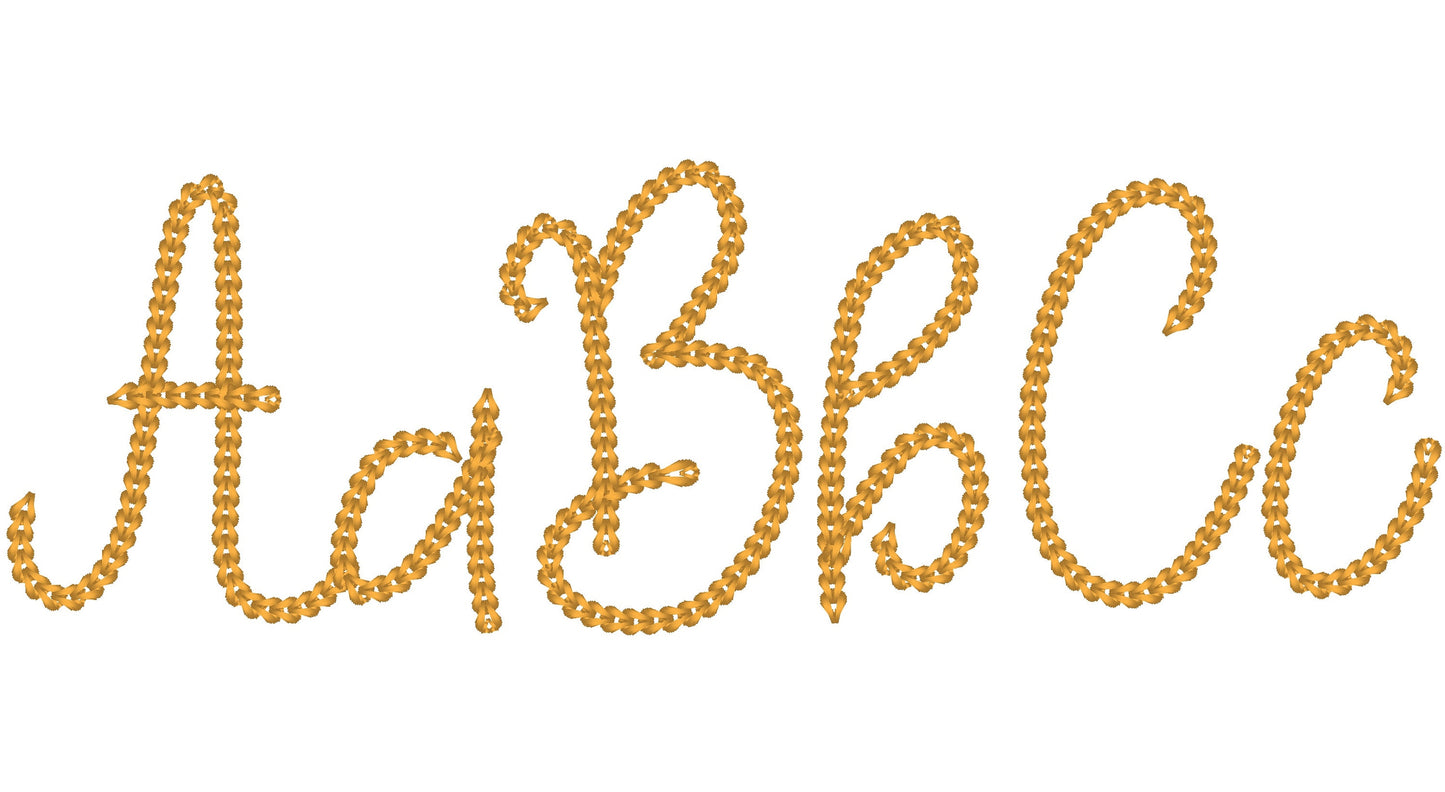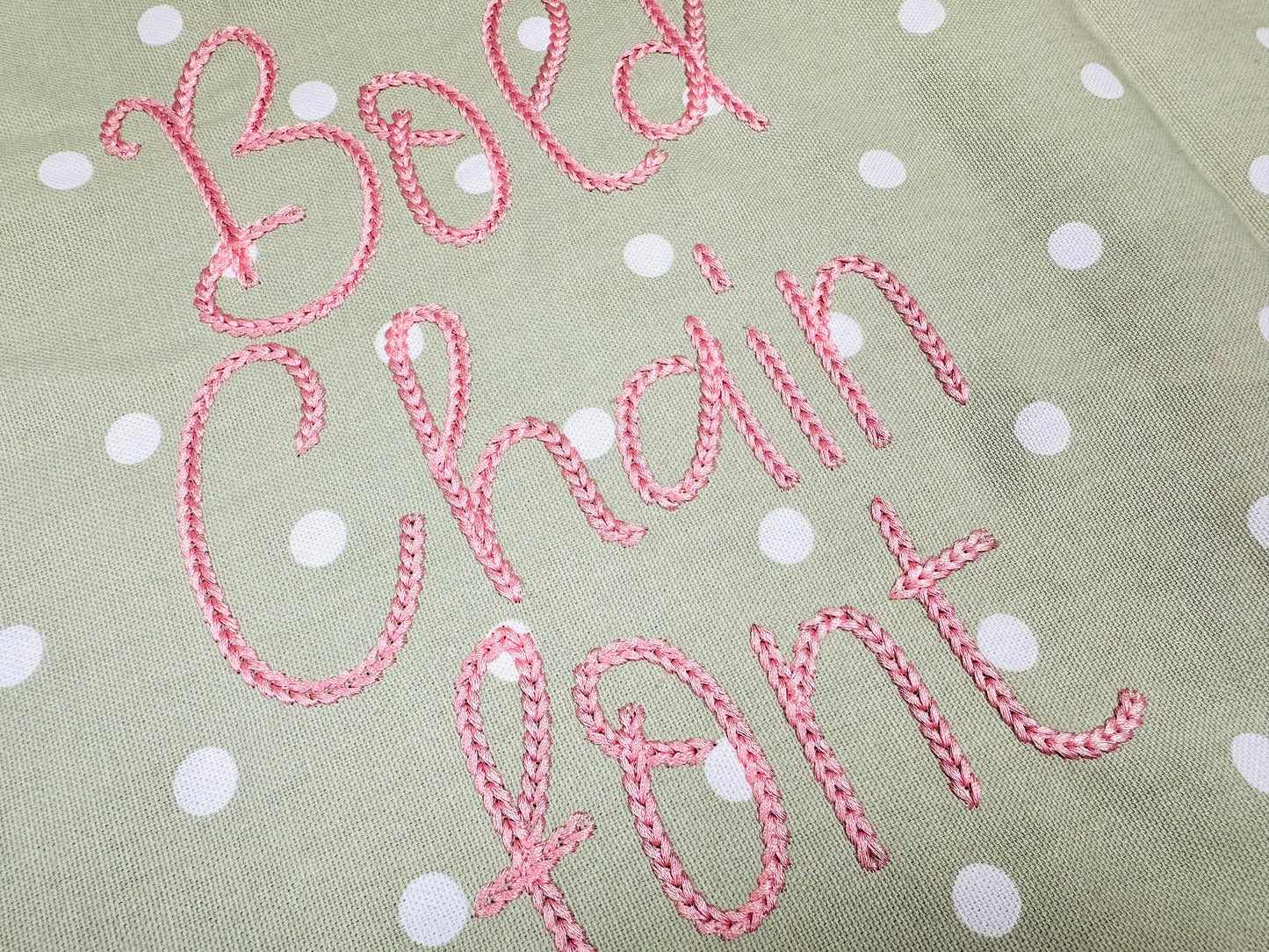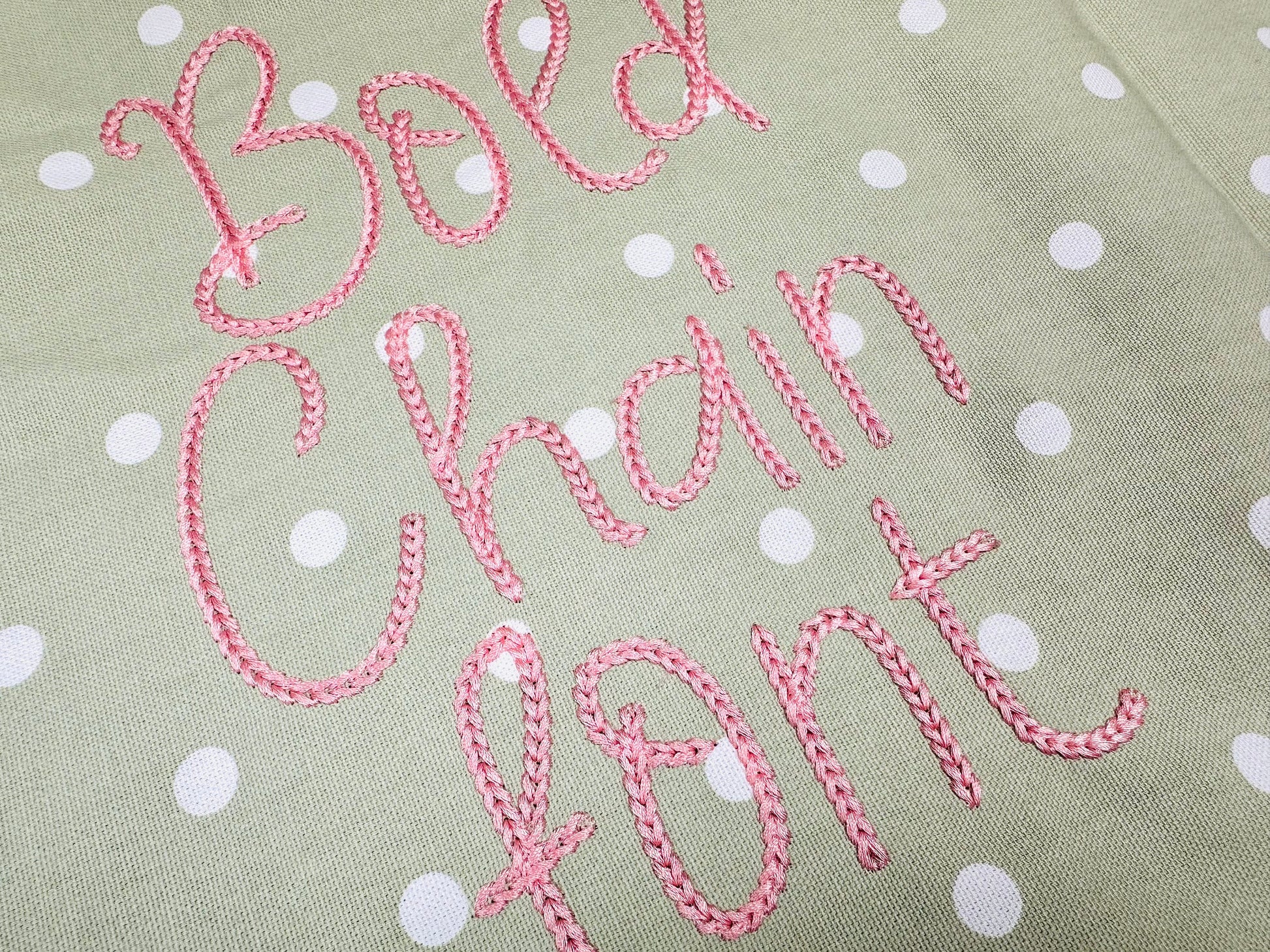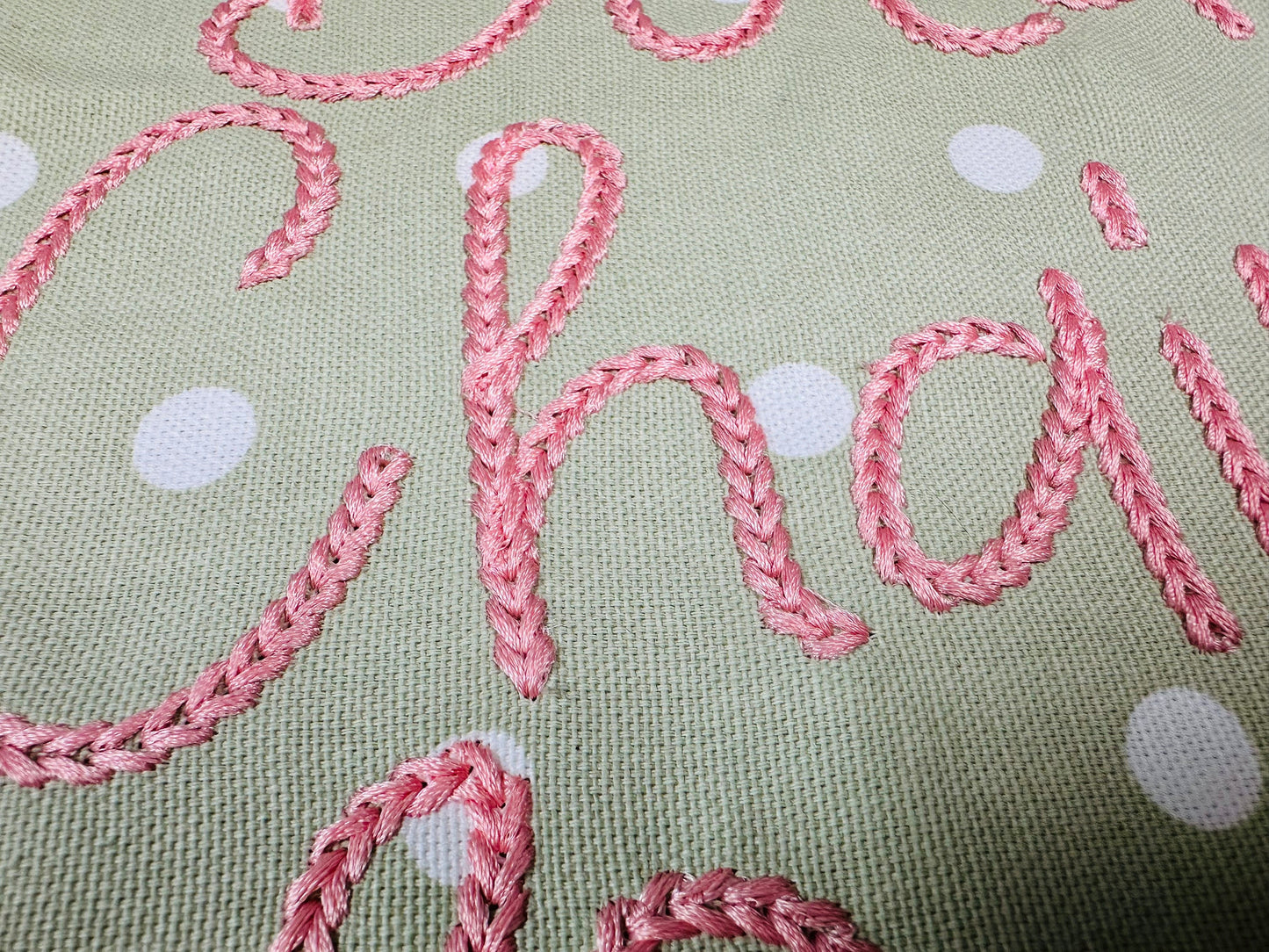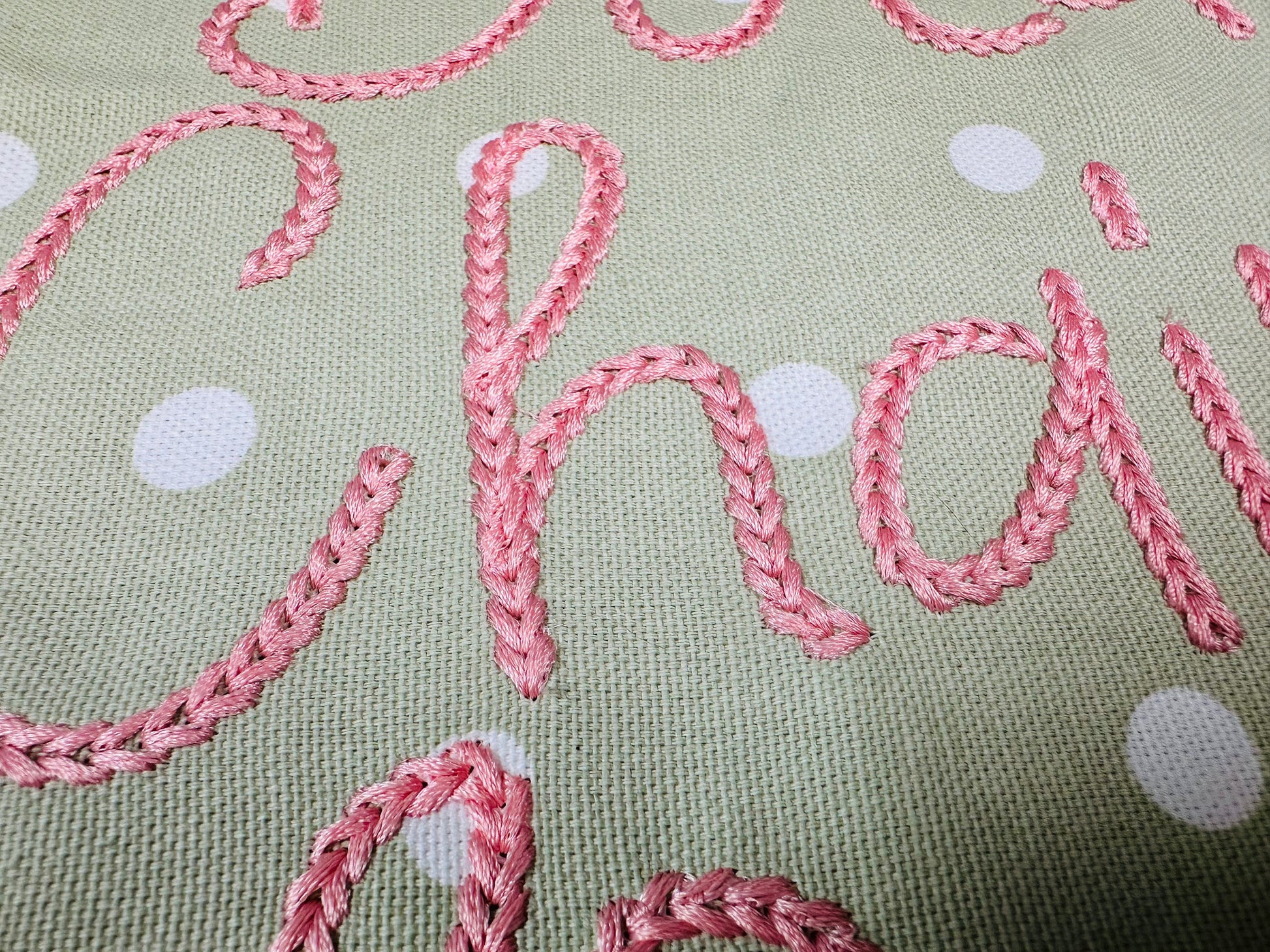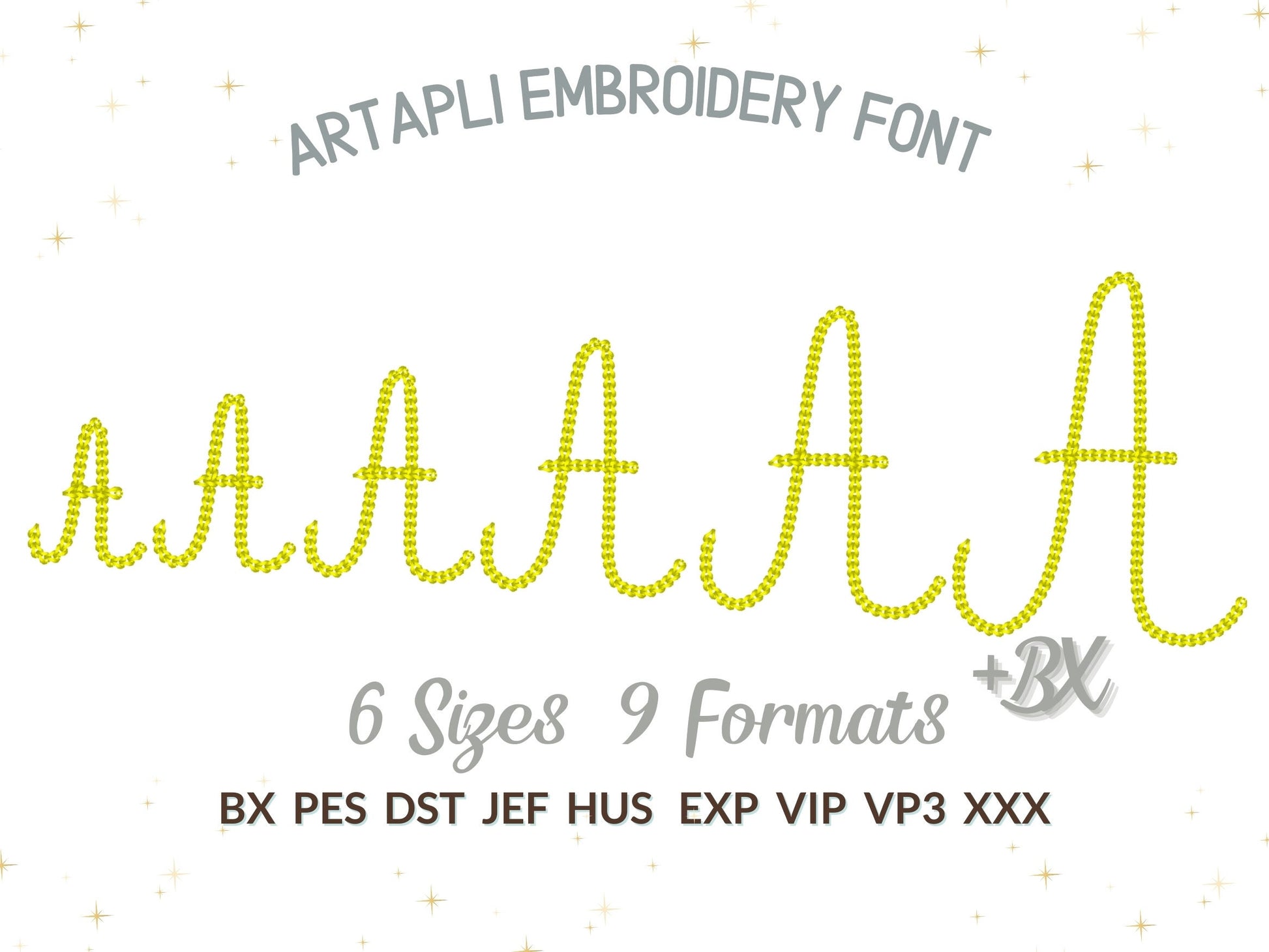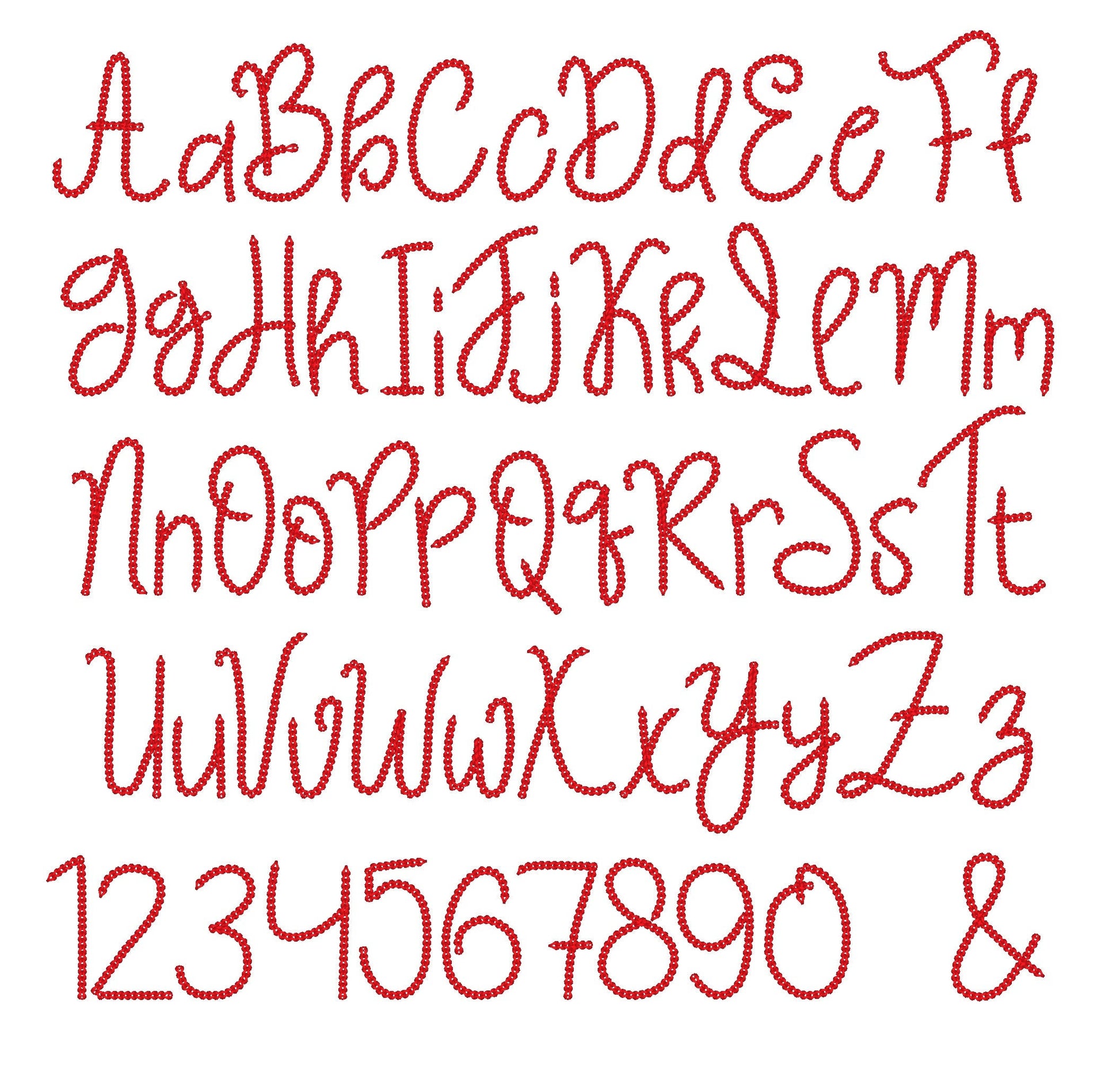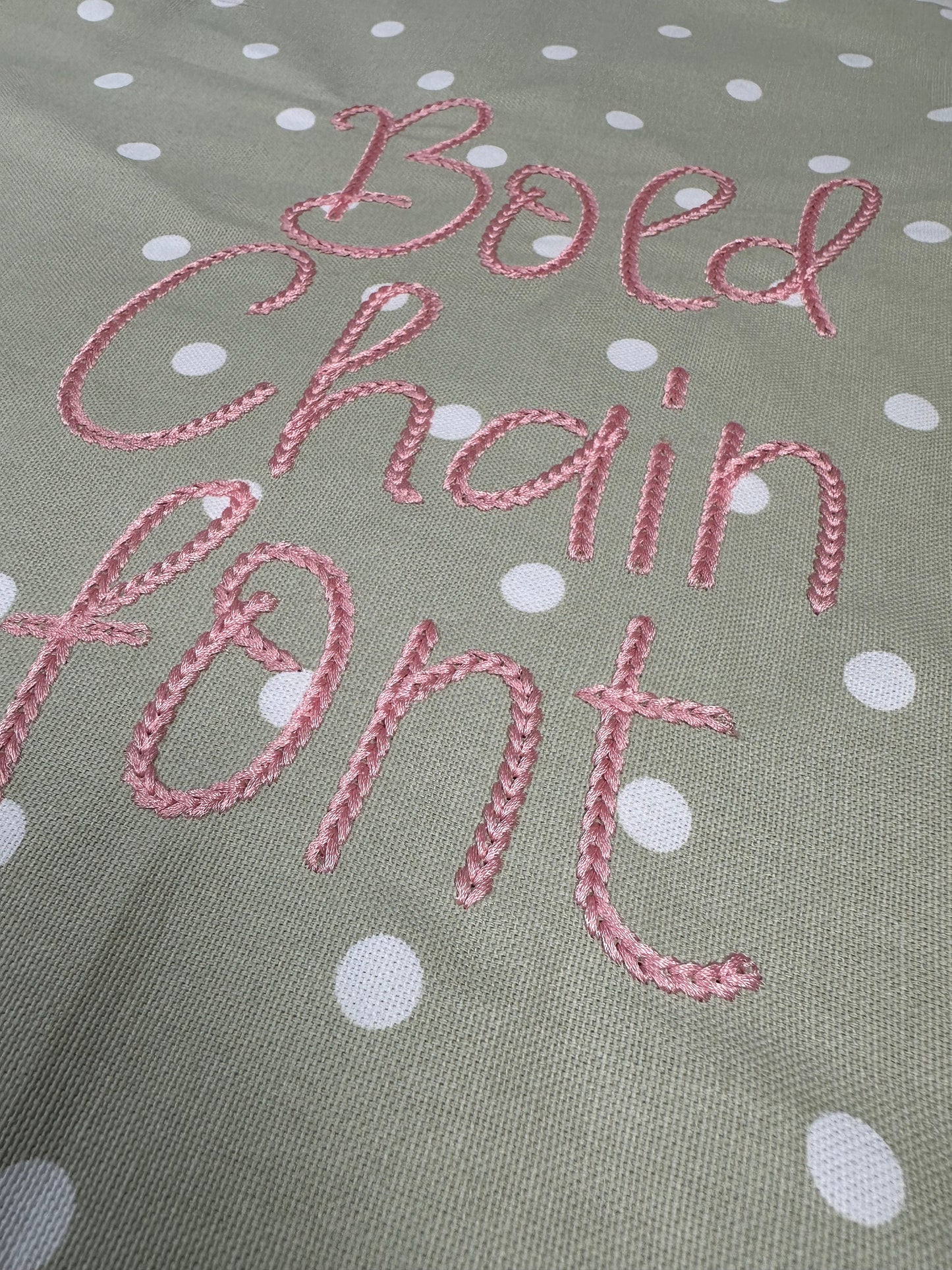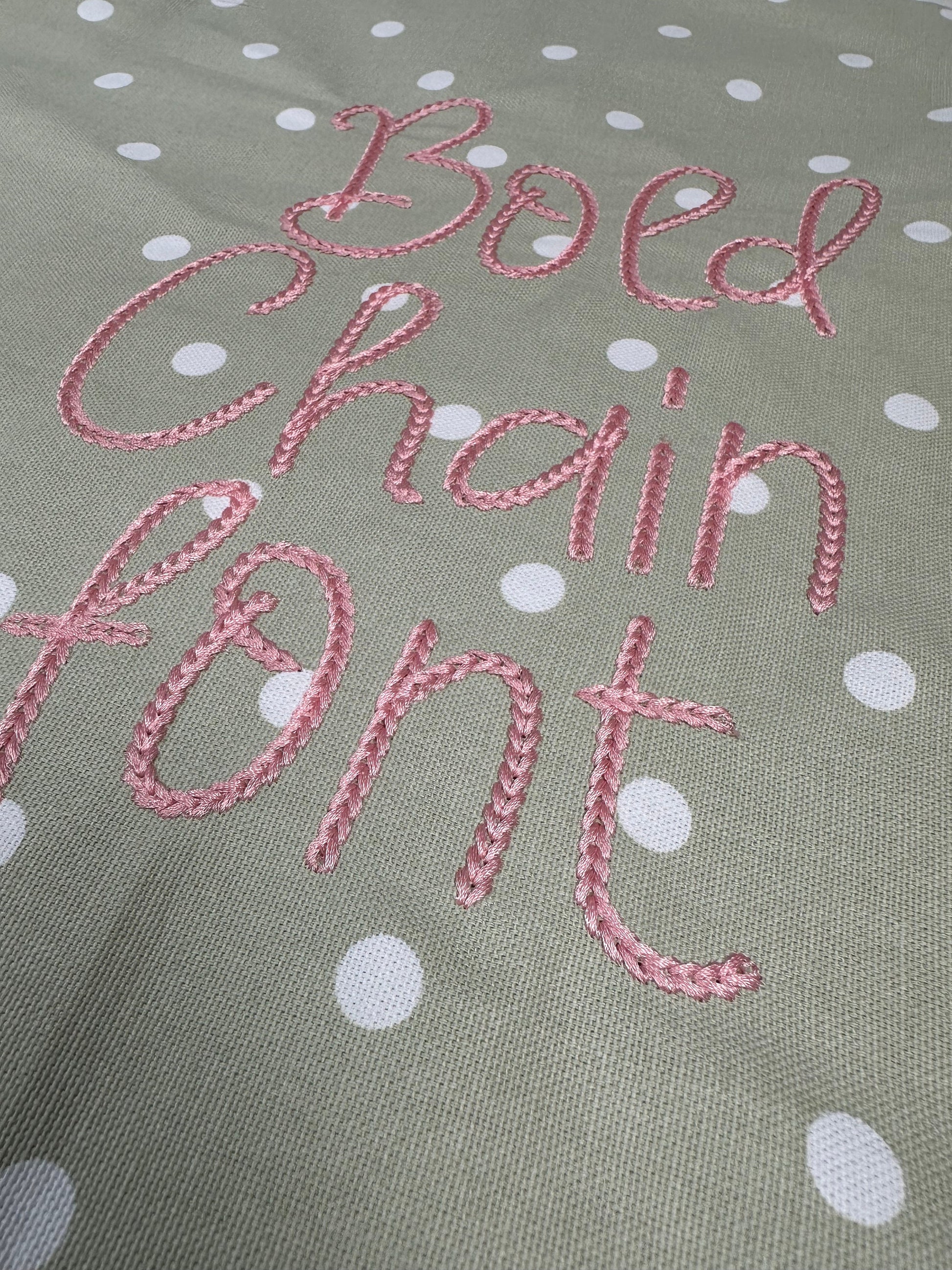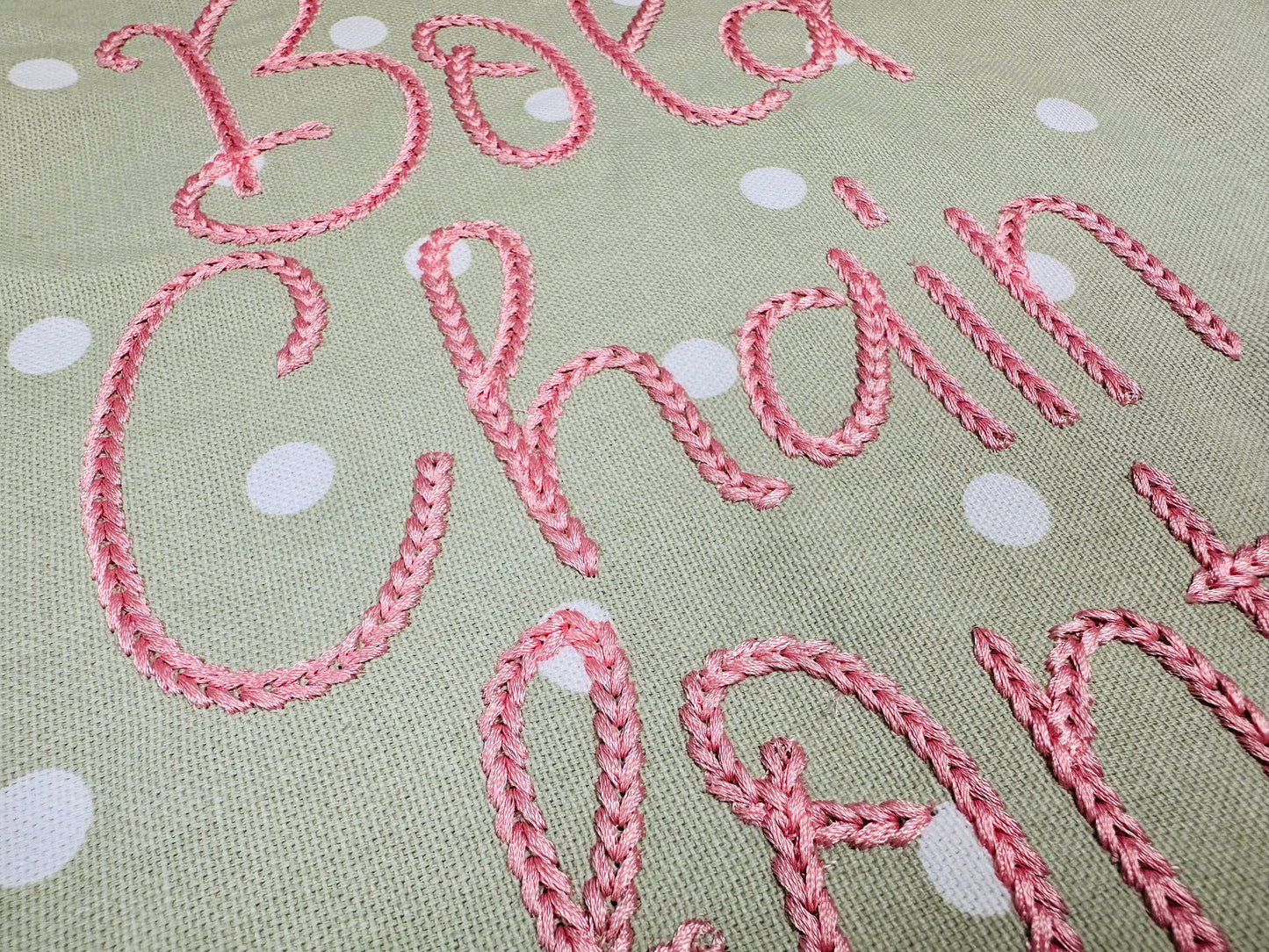
Or click to open the linkA narrow bold font in dense chain stitch with a hand-knit sweater look. Great for names and words on sweatshirts, beanies and blankets.